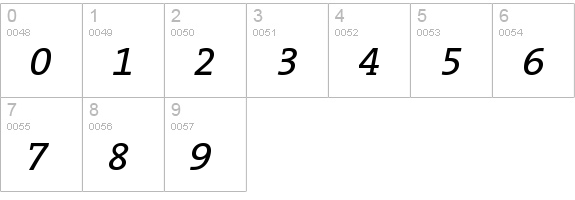
TheSerif Expert Italic Font Details
TheSerif Expert Italic is a distinctive, italic variant in the TheSerif typeface family \xE2\x80\x94 well suited to design and typography projects.
TheSerif Expert Italic font is a sophisticated and elegant typeface that exudes professionalism and refinement. With its sleek and slanted design, this font is perfect for adding a touch of sophistication to any project or design. TheSerif Expert Italic font strikes the perfect balance between being modern and classic, making it suitable for a wide range of applications. Whether you are designing a logo, creating a website, or crafting a professional document, this font will elevate your design and make it stand out. One of the best features of TheSerif Expert Italic font is that it is freely available to download at FontsMarket.com. This means that you can easily access and use this font without any cost or hassle. FontsMarket.com is a reputable website that offers a vast collection of high-quality fonts, and TheSerif Expert Italic font is just one of the many amazing options available. This font is not only visually appealing but also highly legible, ensuring that your message is effectively communicated to your audience. The elegant curves and unique letterforms of TheSerif Expert Italic font add a touch of sophistication and style to your text, making it visually captivating and engaging. Whether you are a professional designer, a student, or simply someone who appreciates beautiful typography, TheSerif Expert Italic font is a must-have addition to your font collection. Its versatility, elegance, and free availability make it an excellent choice for a wide range of projects and designs. Download TheSerif Expert Italic font today from FontsMarket.com and discover the endless possibilities it offers. Enhance your designs, captivate your audience, and elevate your work with this exquisite and freely available font.